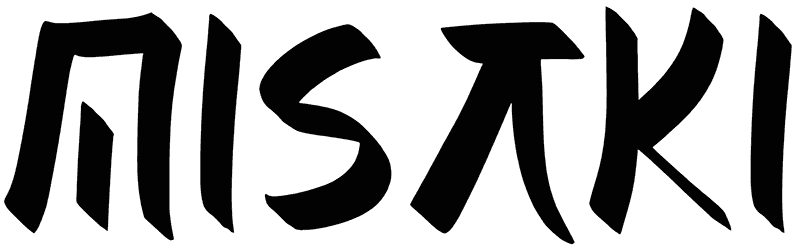
Misaki Font
Isn’t it just awesome that you can trick people into thinking they’re supposed to be reading Japanese, while that’s not the case at all? The brush letters of Misaki are here to make that happen while elevating your designs.
This Asian font is perfect for enriching your words both artistically and culturally. Wherever you see the all-caps letters of this karate font, you’ll know it has what it takes to become one of the best T-shirts, language class posters, etc.